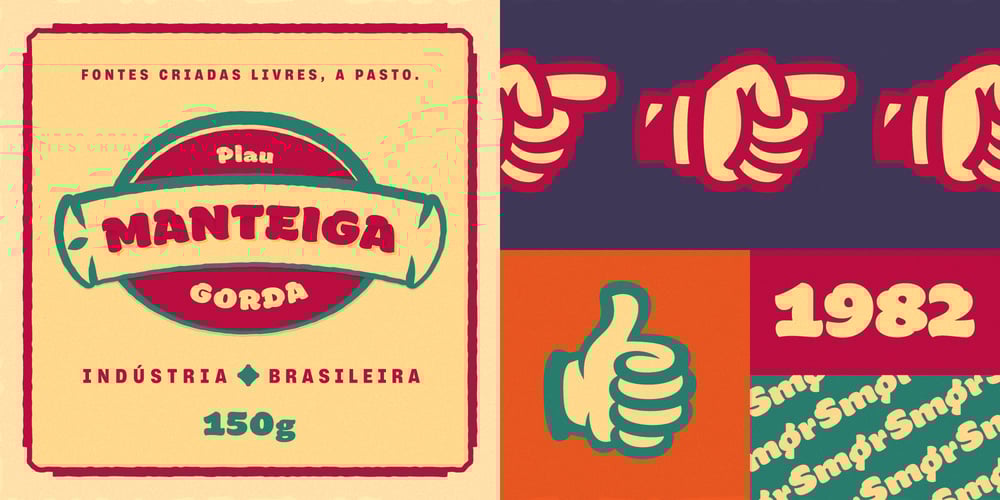
Manteiga
Manteiga Font Family was designed by Rodrigo Saiani and published by Plau. Manteiga contains 1 styles and family package options. Julia Child once said: the secret to great french cooking is butter, butter. Thus, we present to you Manteiga – butter in Portuguese! – a typeface for heart-melting, word-spreading goodness. The idea we had was to play with brush lettering – a style we love – and go as far as we can with the shapes of the letters while finding balance between positive and negative space. We wanted biiiig personality. And small inconsistencies – the ones that add texture and life to lettering. We left extensive OpenType features and technical stuff aside for a moment, adding later only what we thought was necessary, like different shapes for the Q, a and g – for example. All caps setting was something we wanted from the beginning. In text case, the x-height is rather short for a brush script, and this lends a quirky voice. Spacing is ultra tiiiiight so don’t go too small, but make it as big as you want! Ah! And there are some fun dingbats thrown in for good measure.